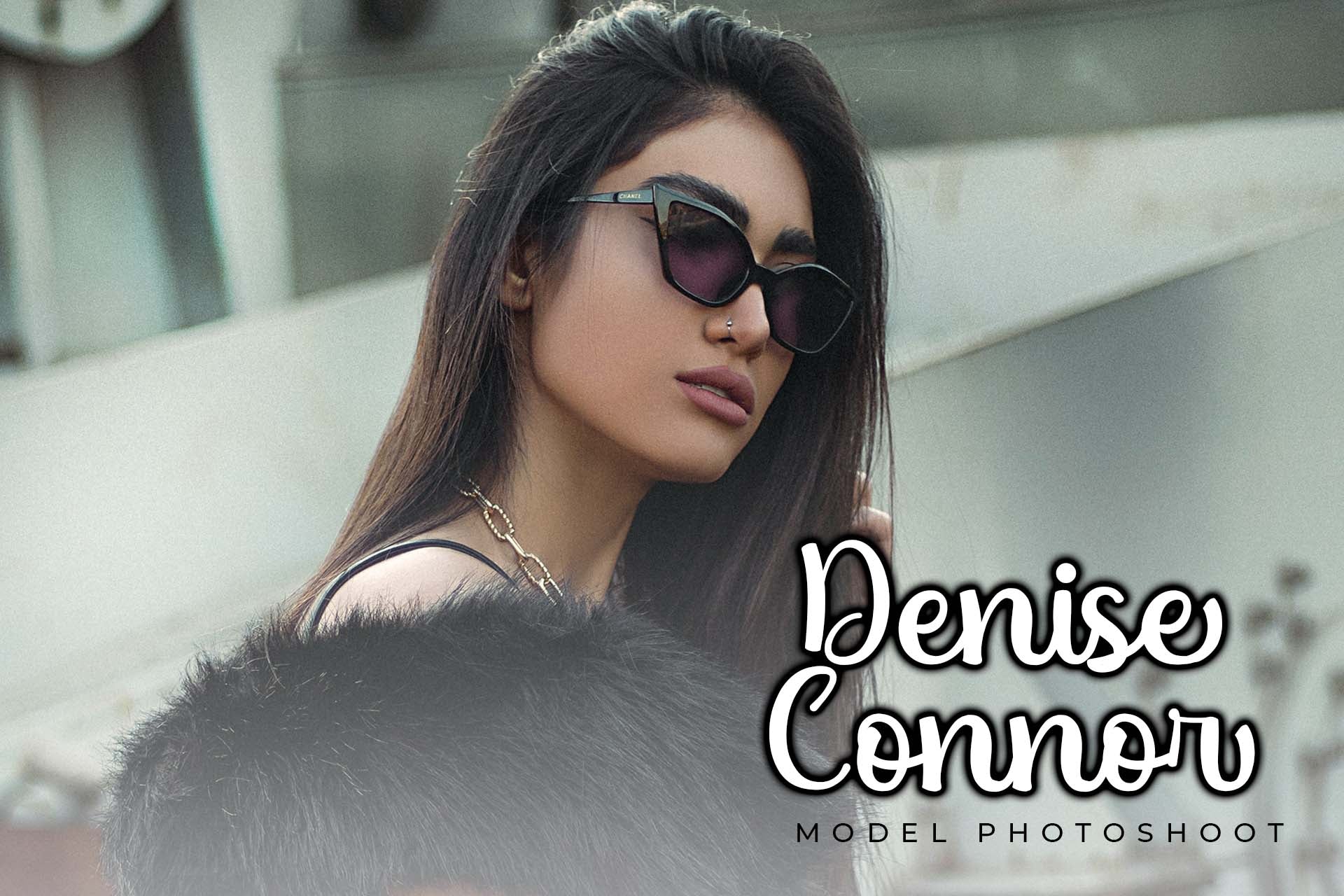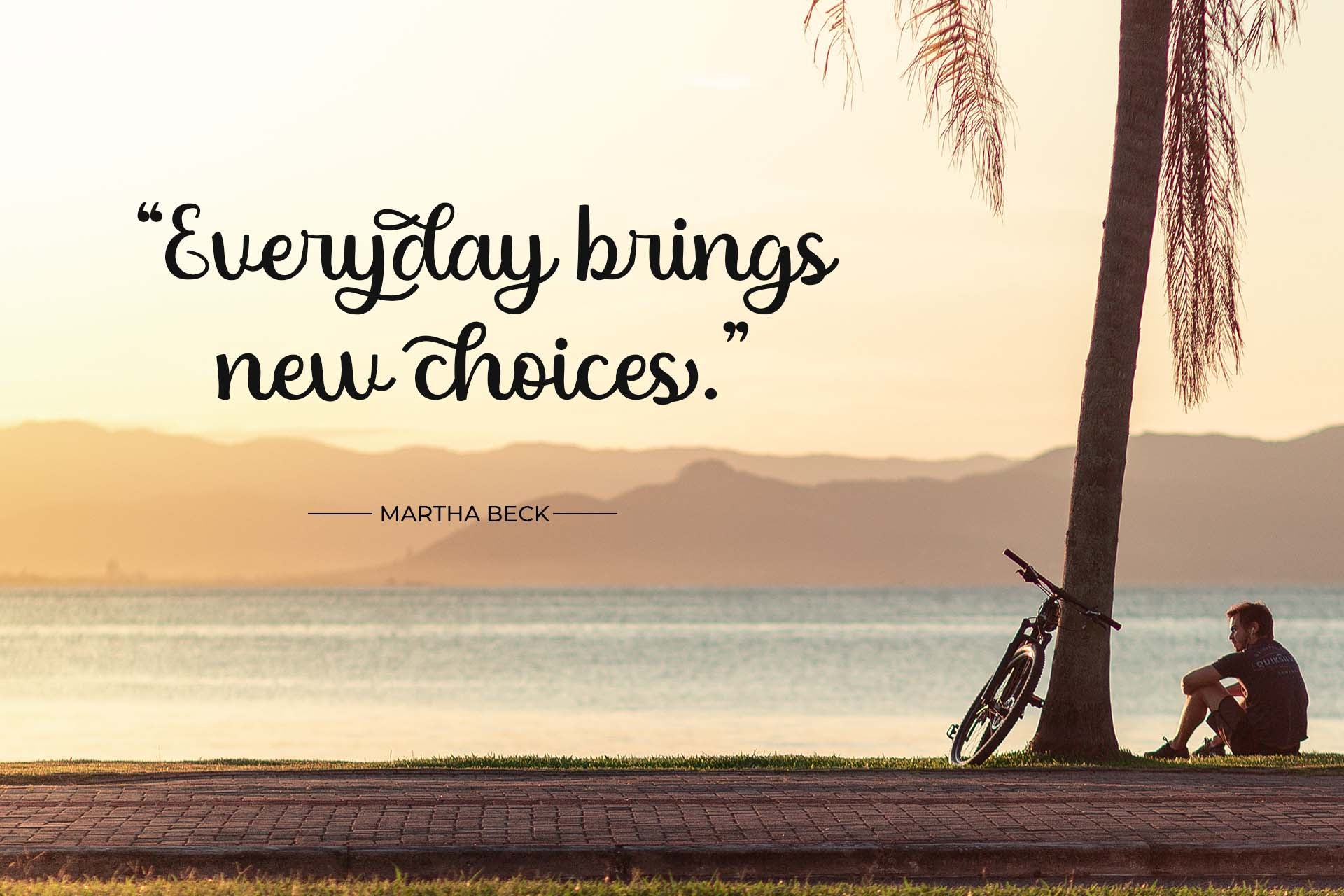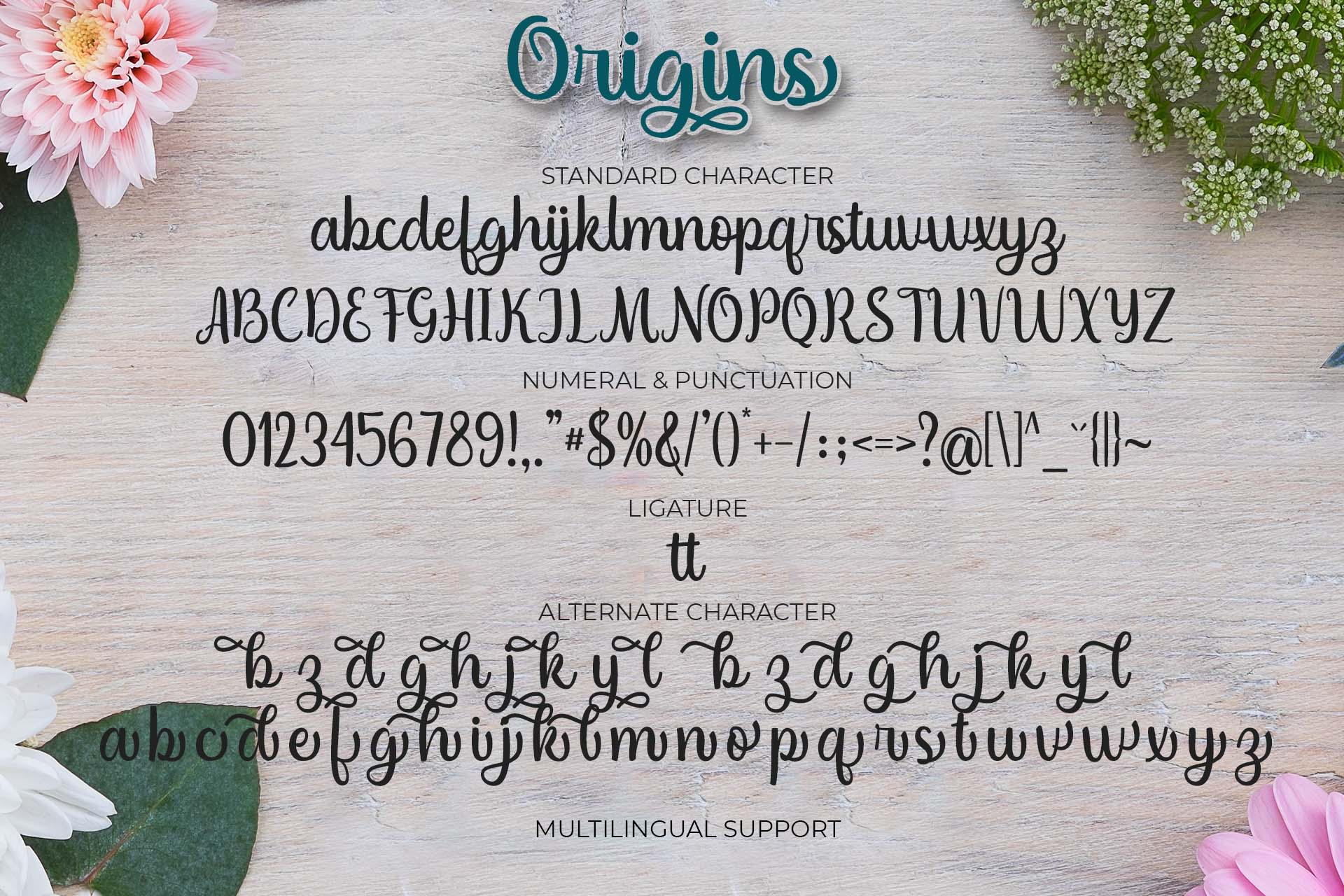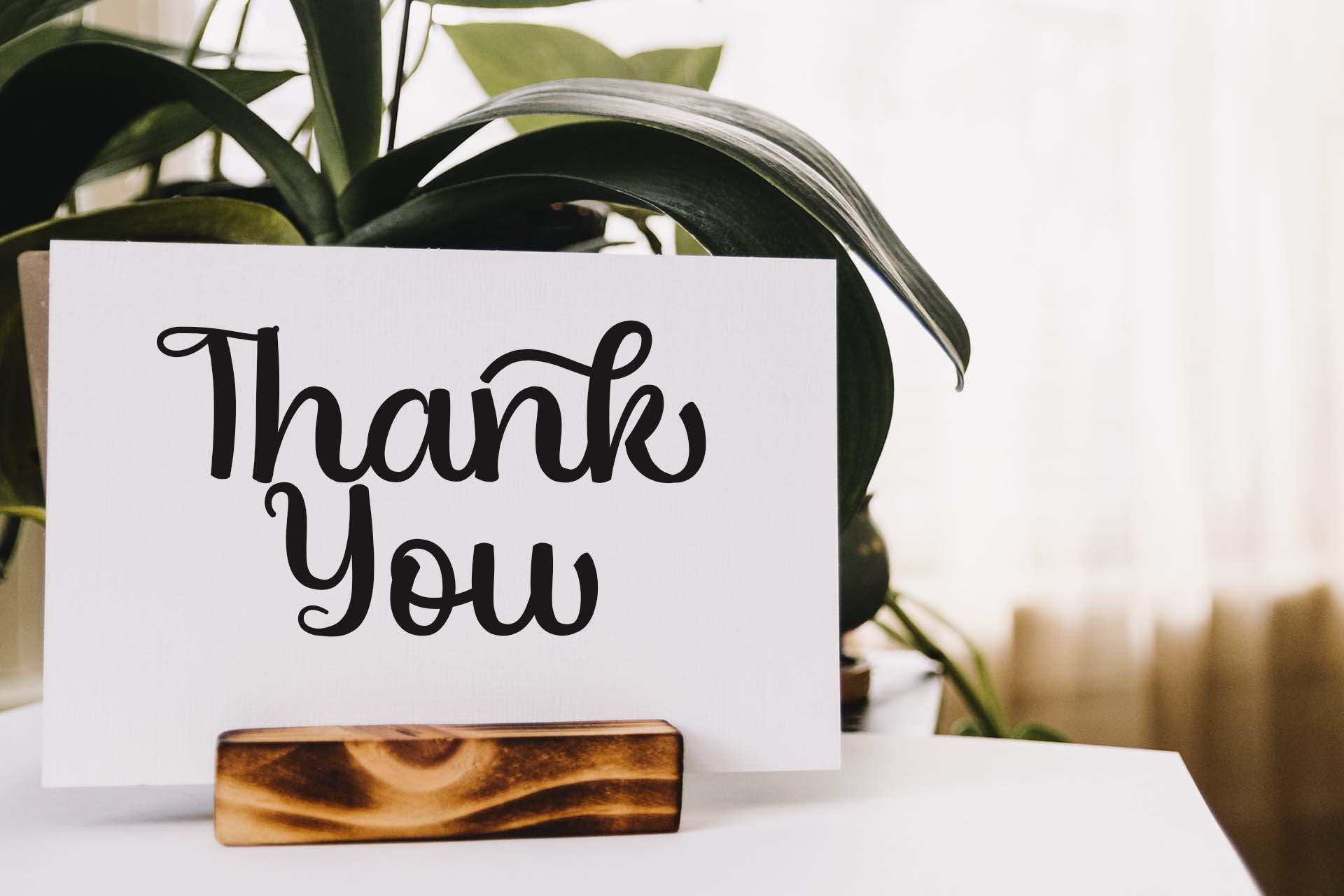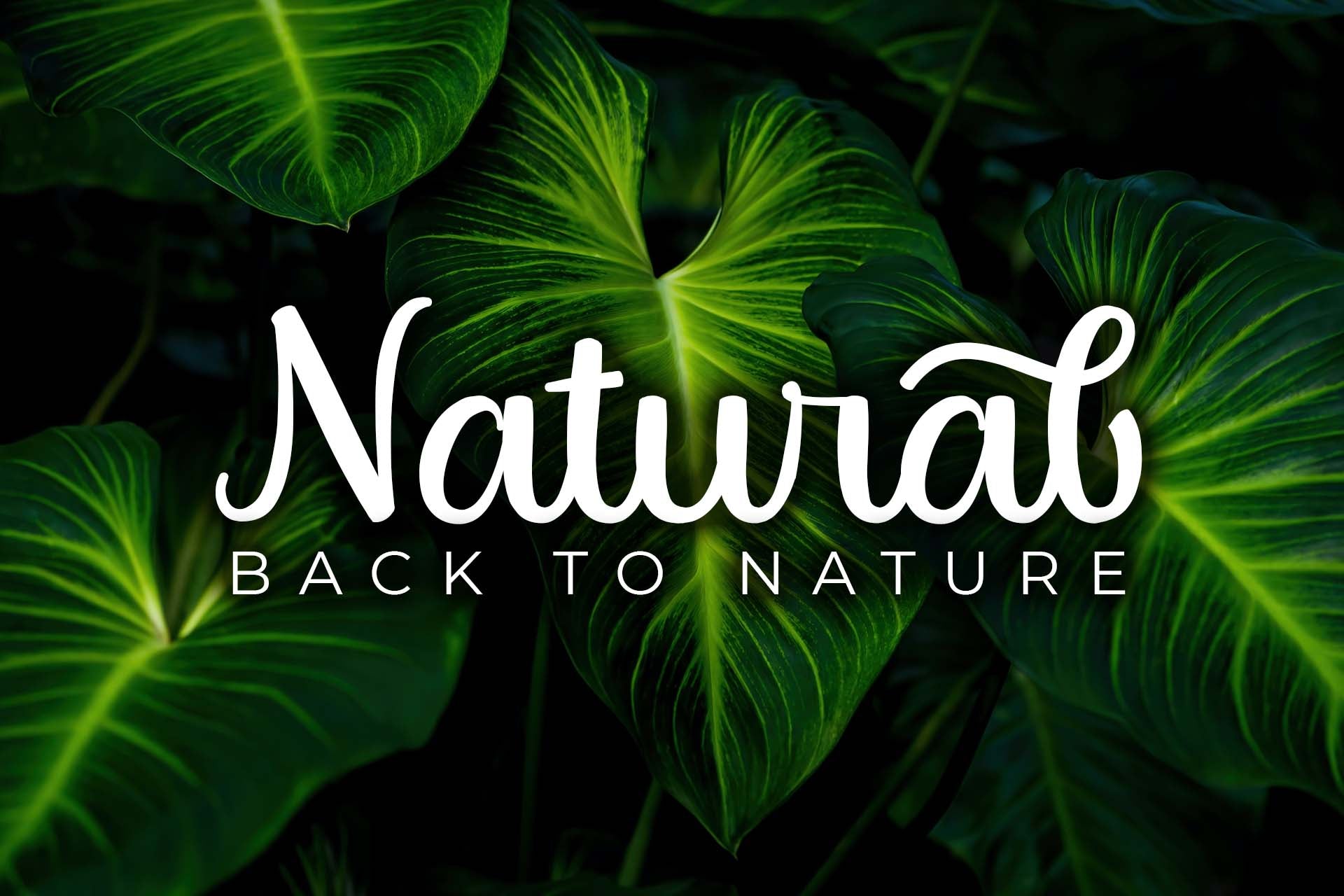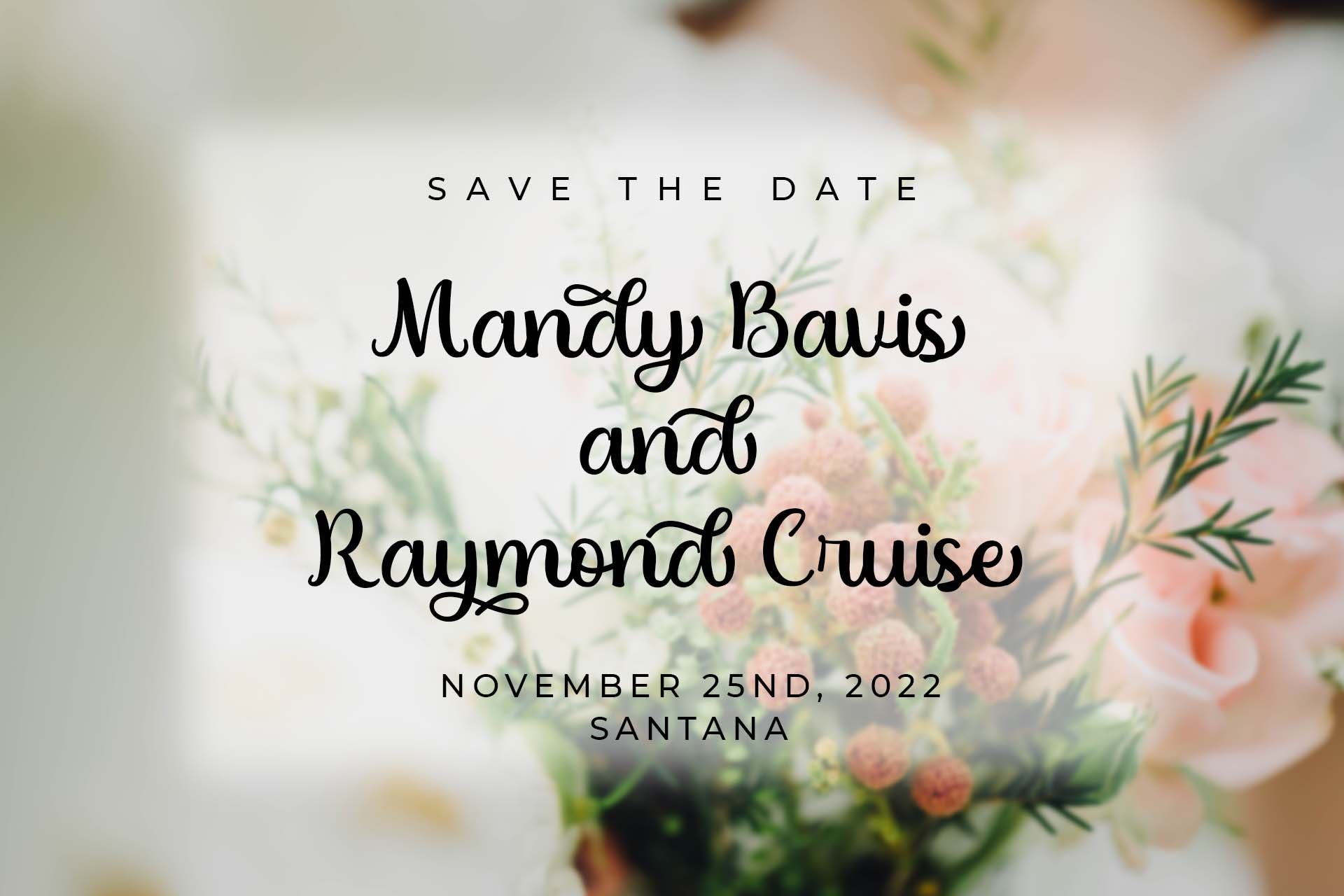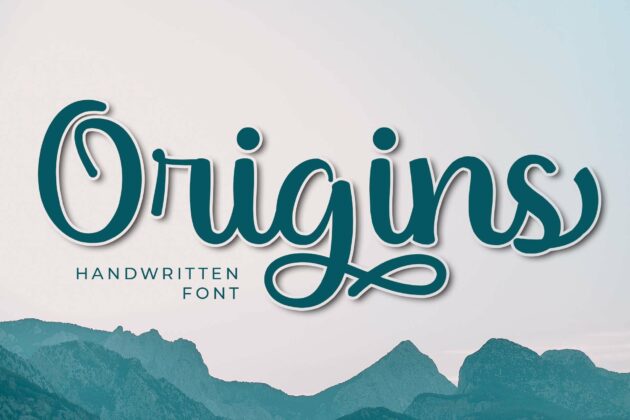
Origins
Origins feels equally charming and elegant. It looks stunning on wedding invitations, thank you cards, quotes, greeting cards, logos, business cards and every other design which needs a handwritten touch. This font is PUA encoded which means you can access all of the glyphs and swashes with ease!